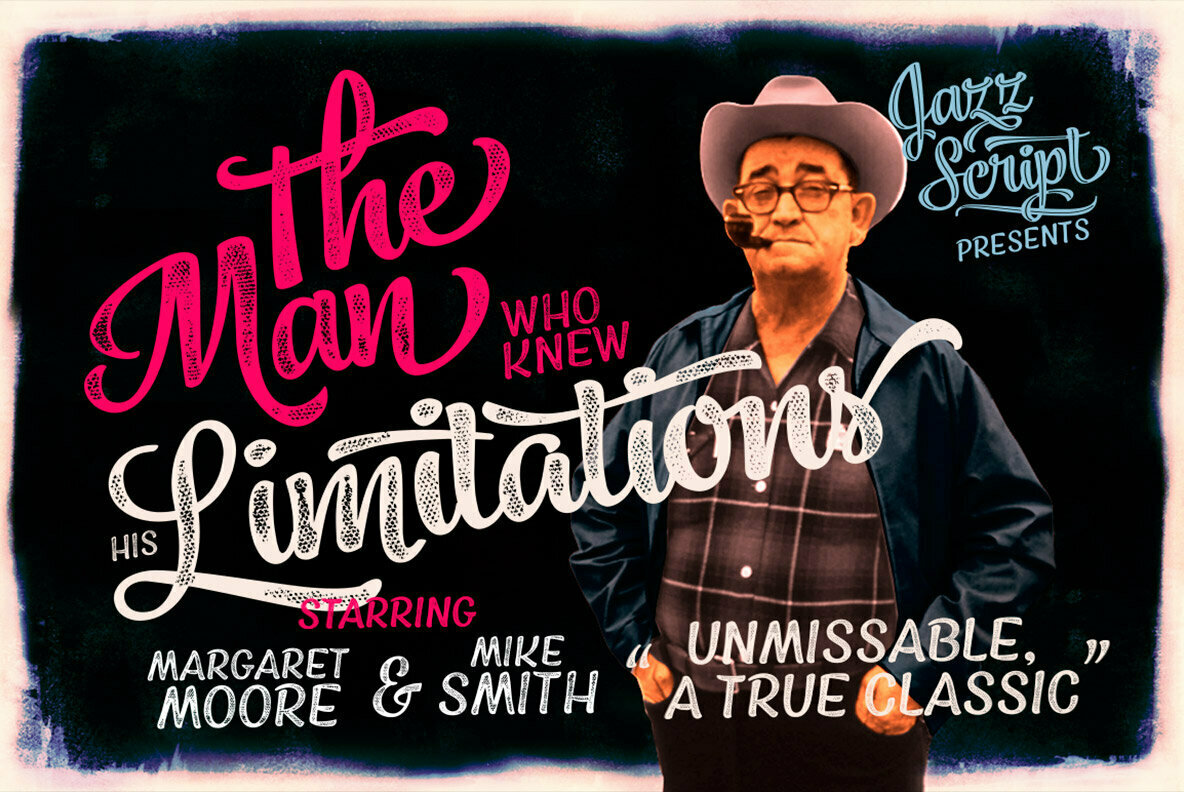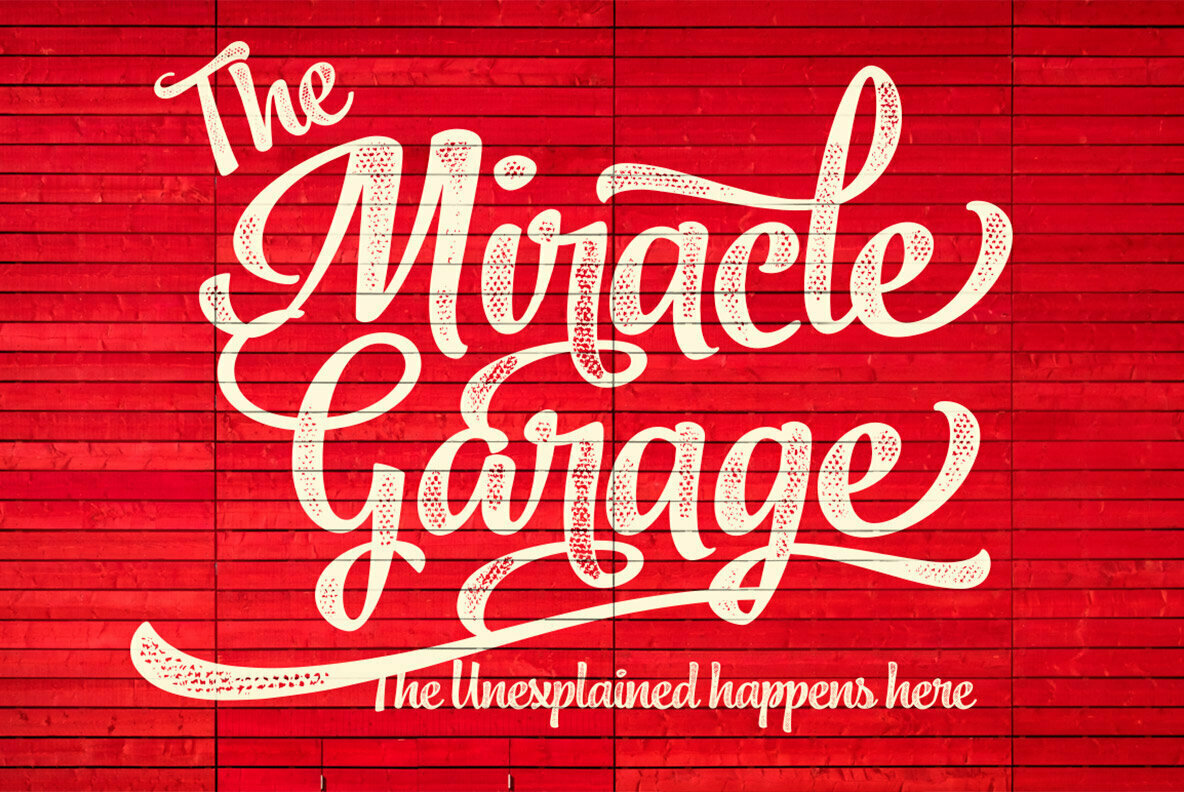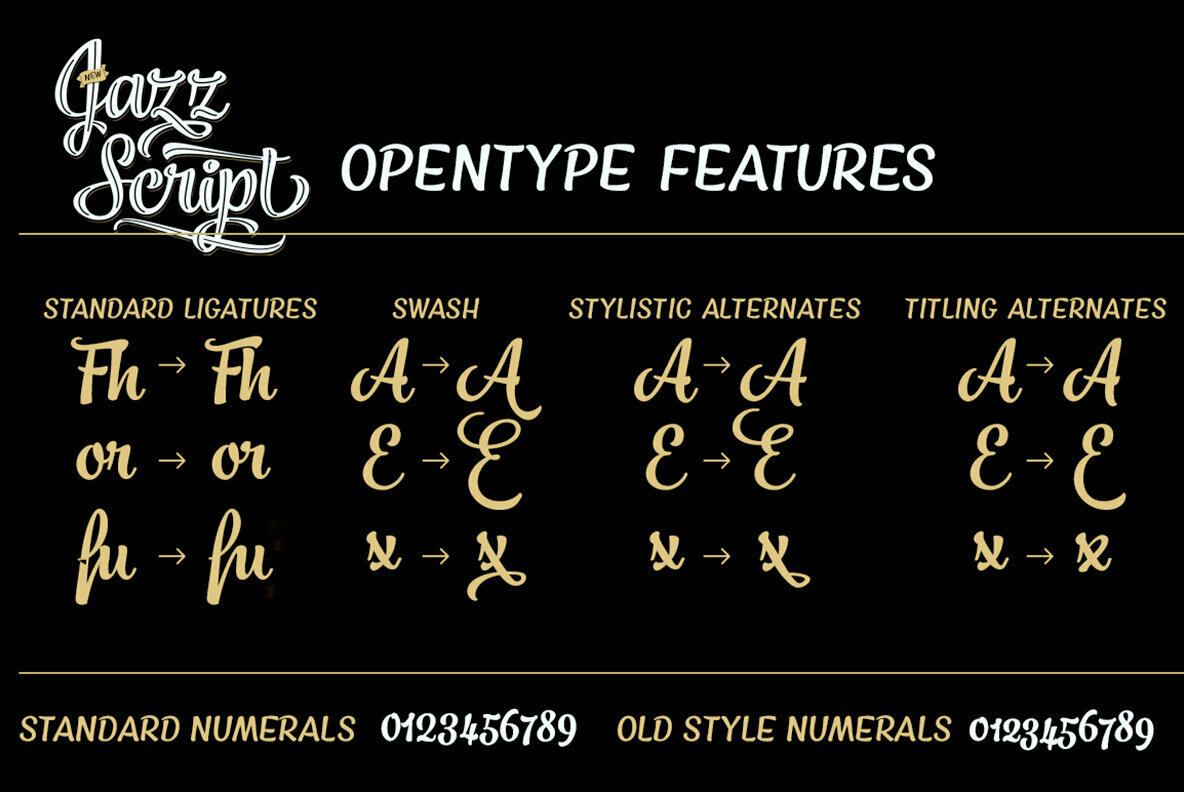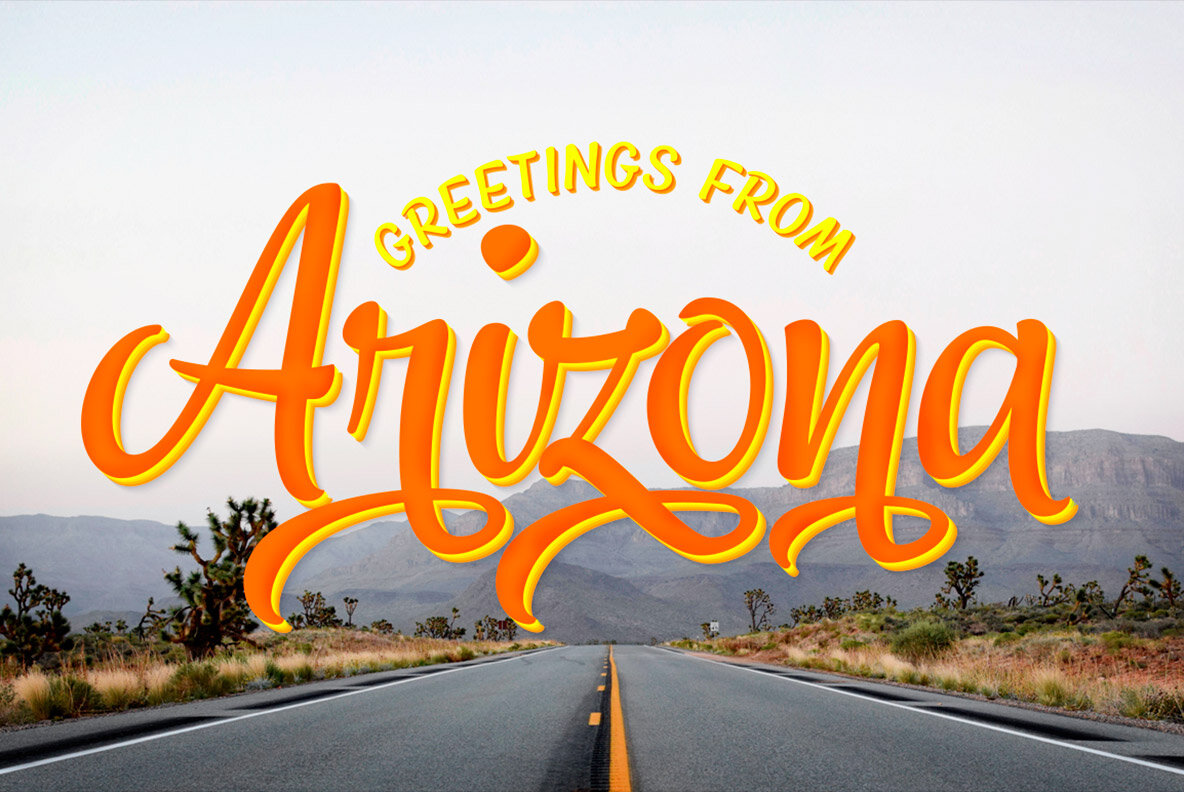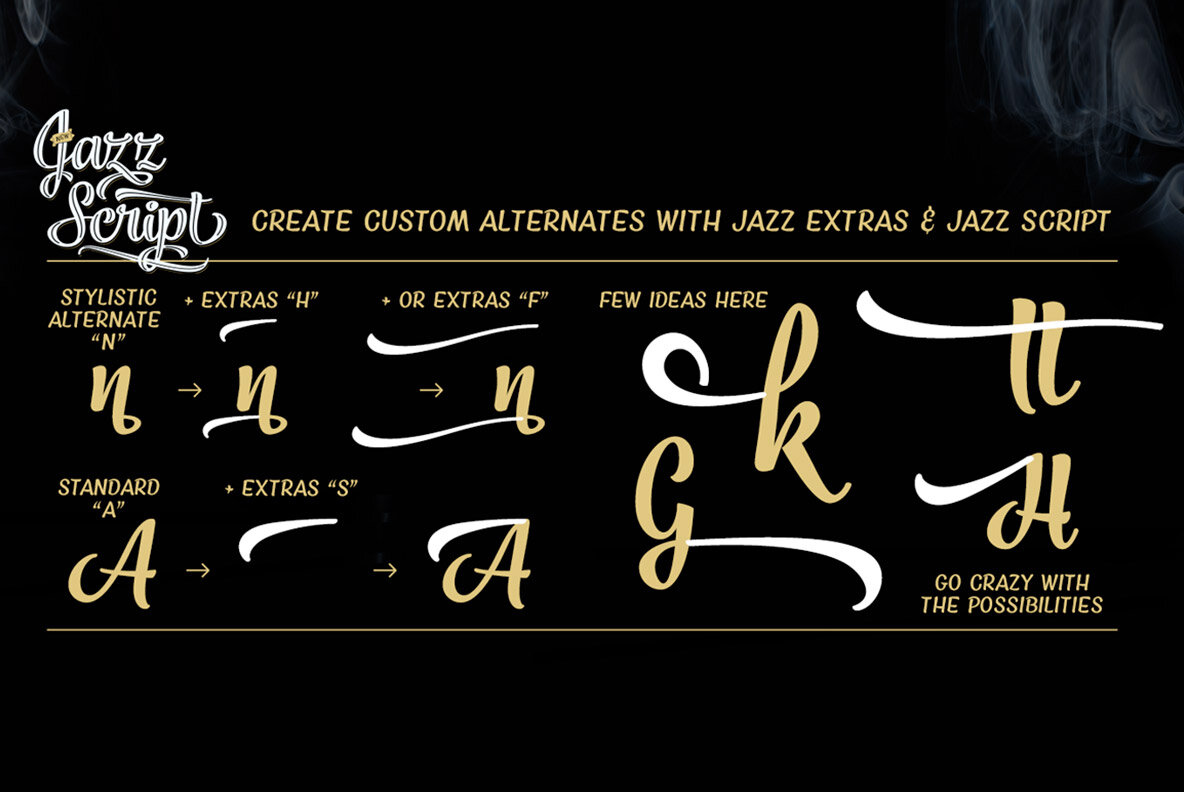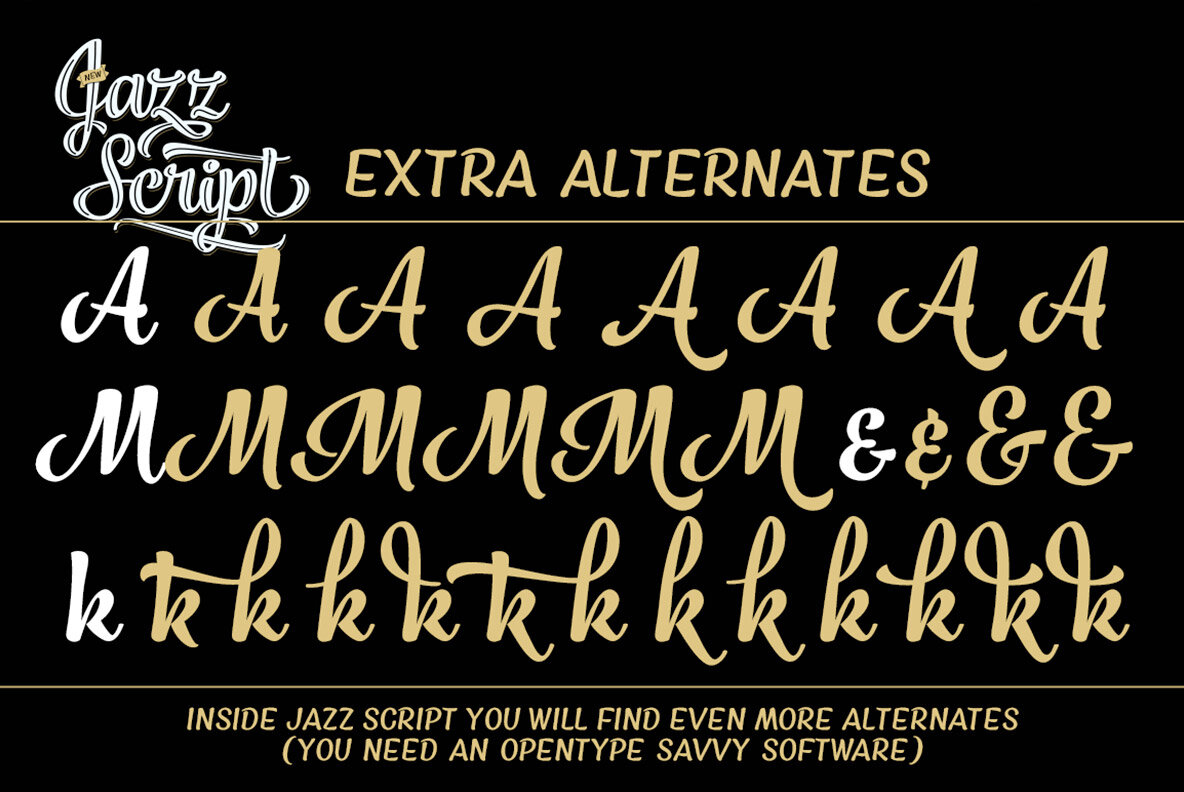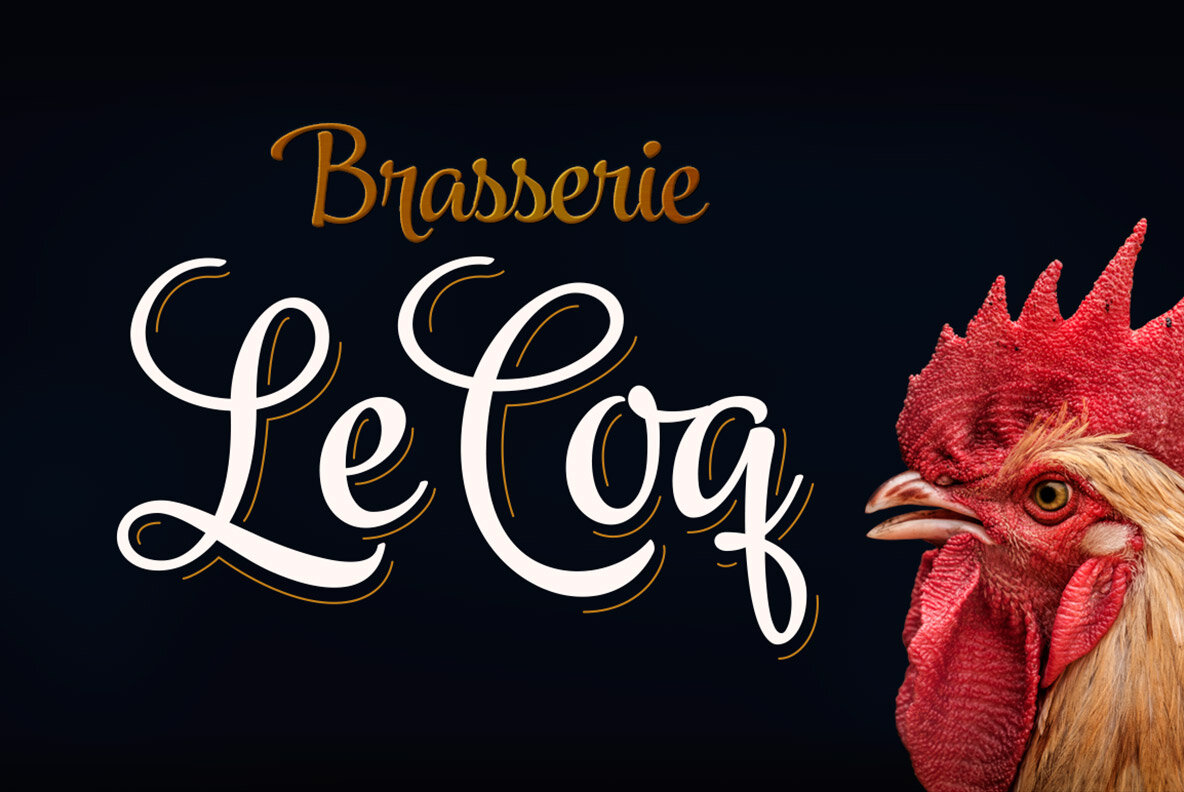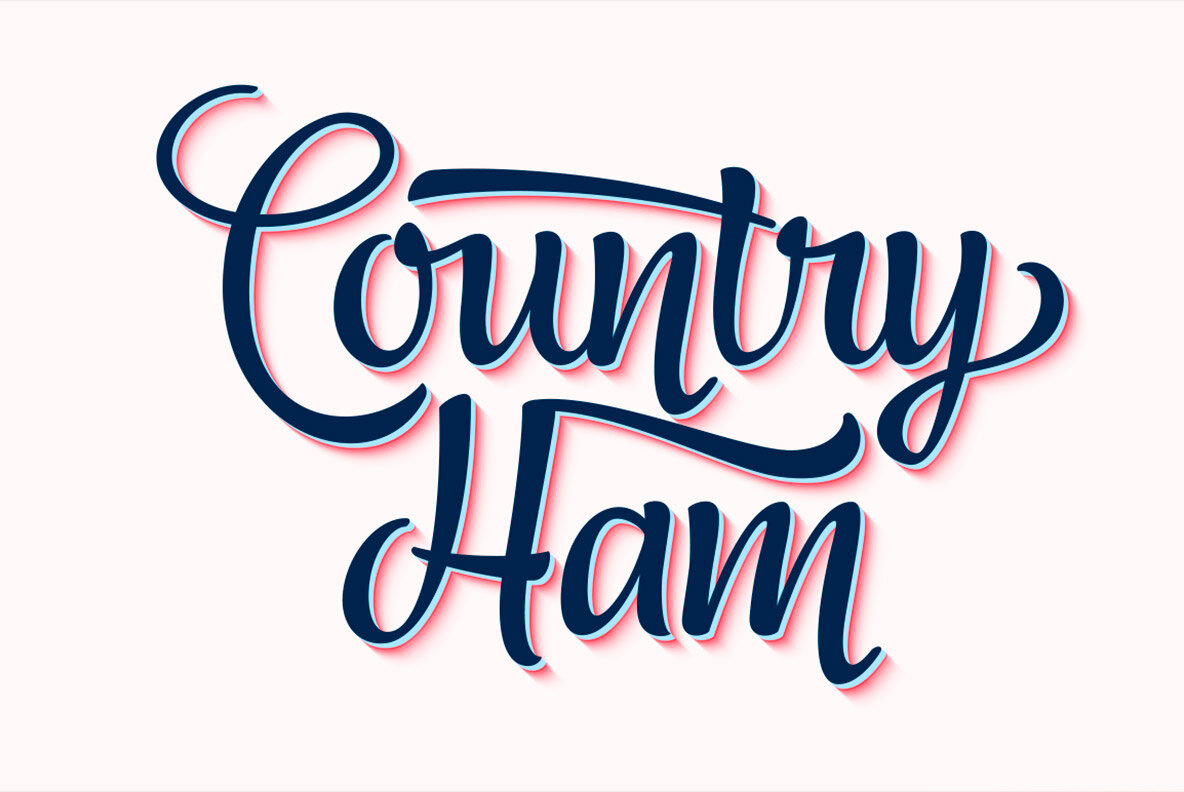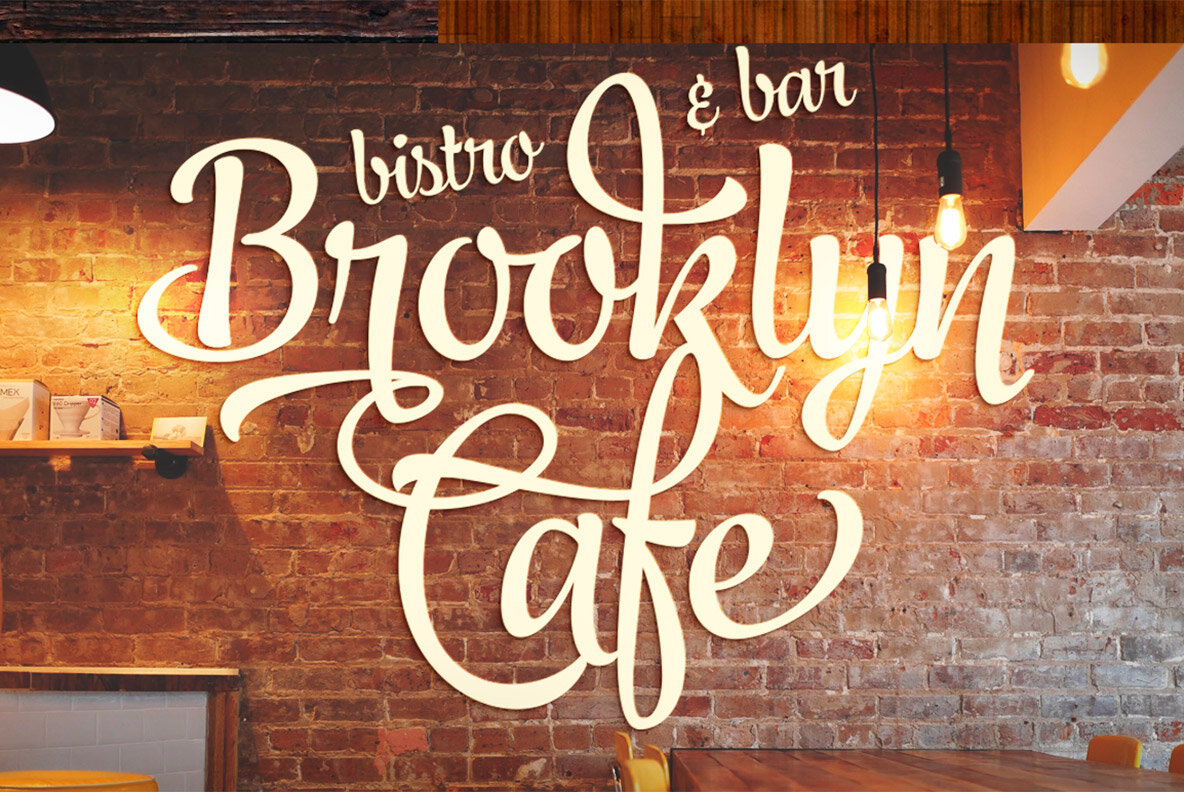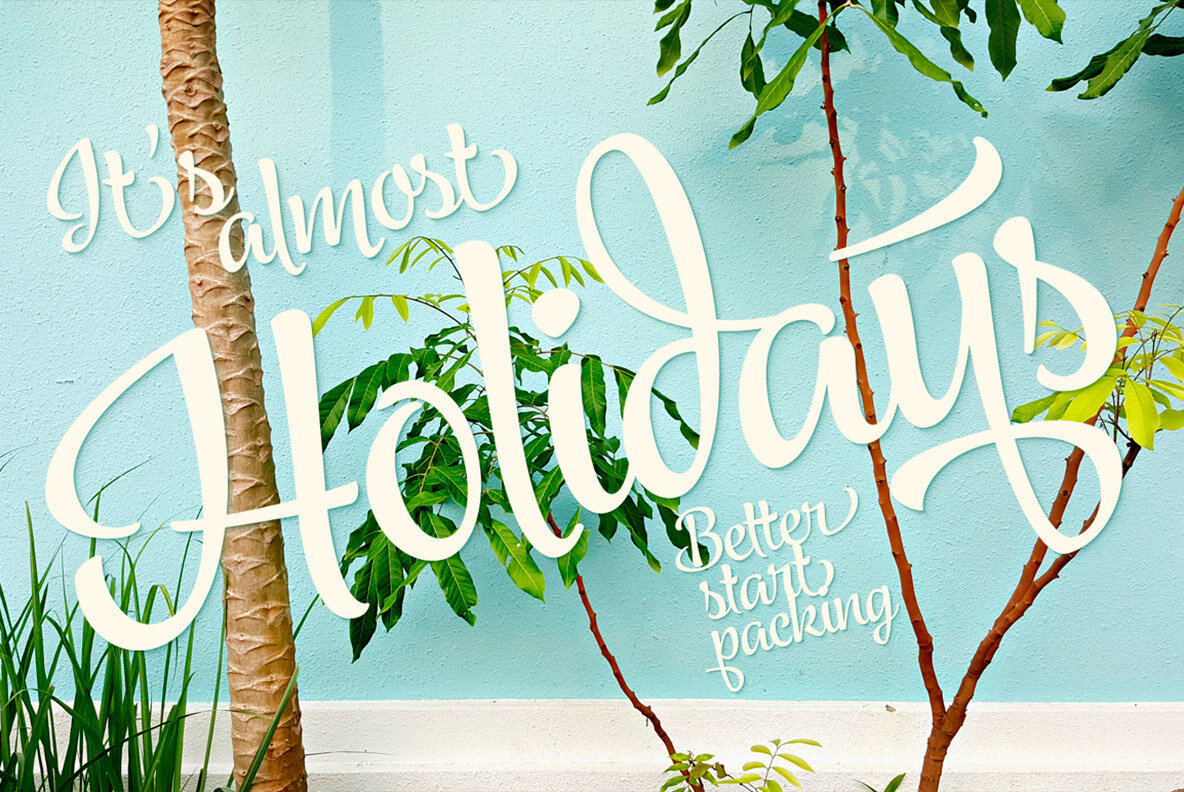
Jazz Script Font
Jazz Script is a groovy font family of two weights of the Script, a vivid set of Caps and Extras to spice up your designs or create custom letters with extra swashes.
Inspired by 50s and 60s American lettering but polished with sharp but smooth vector expression Jazz Script is a powerful tool for creating iconic headlines, packages, or logos. Each Script version contains more than 750 glyphs and is equipped with several OpenType features to easy up your access for all the goodies: turn on Swash, Contextual or Titling Alternates or manually select from the Glyph Palette from even more Alternates to compose elegant word images. Jazz Script also has plenty of Automatic Ligatures that keep the text flowing and then there’s Proportional Oldstyle for more bouncy numerals.
Jazz Script Family has four versions: #1 is regular, #2 has inline and #3 and 4 have different styles of carefully designed printed texture on them. For the very best price purchase the complete set that has all versions of Jazz Script and go wild with the flow!